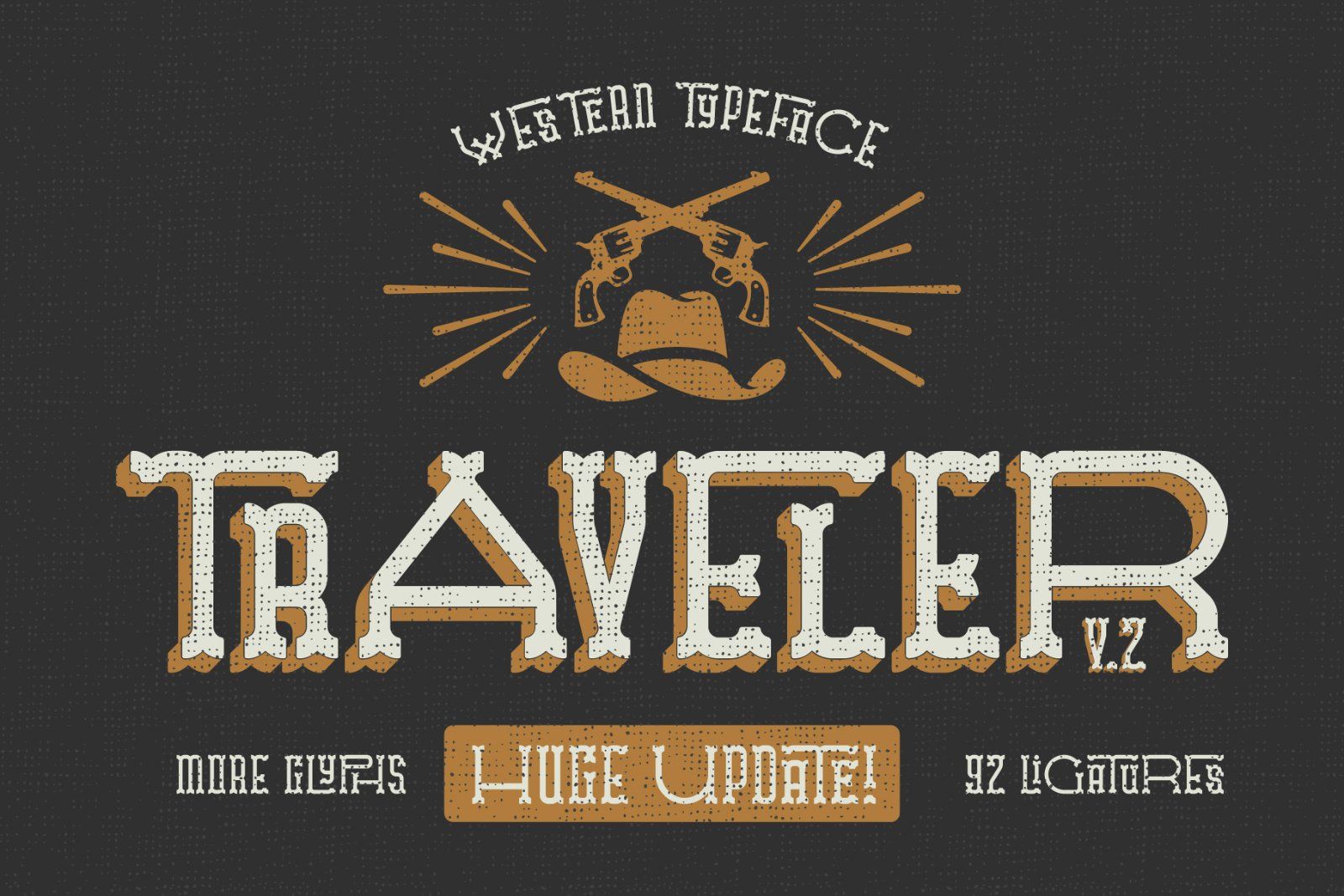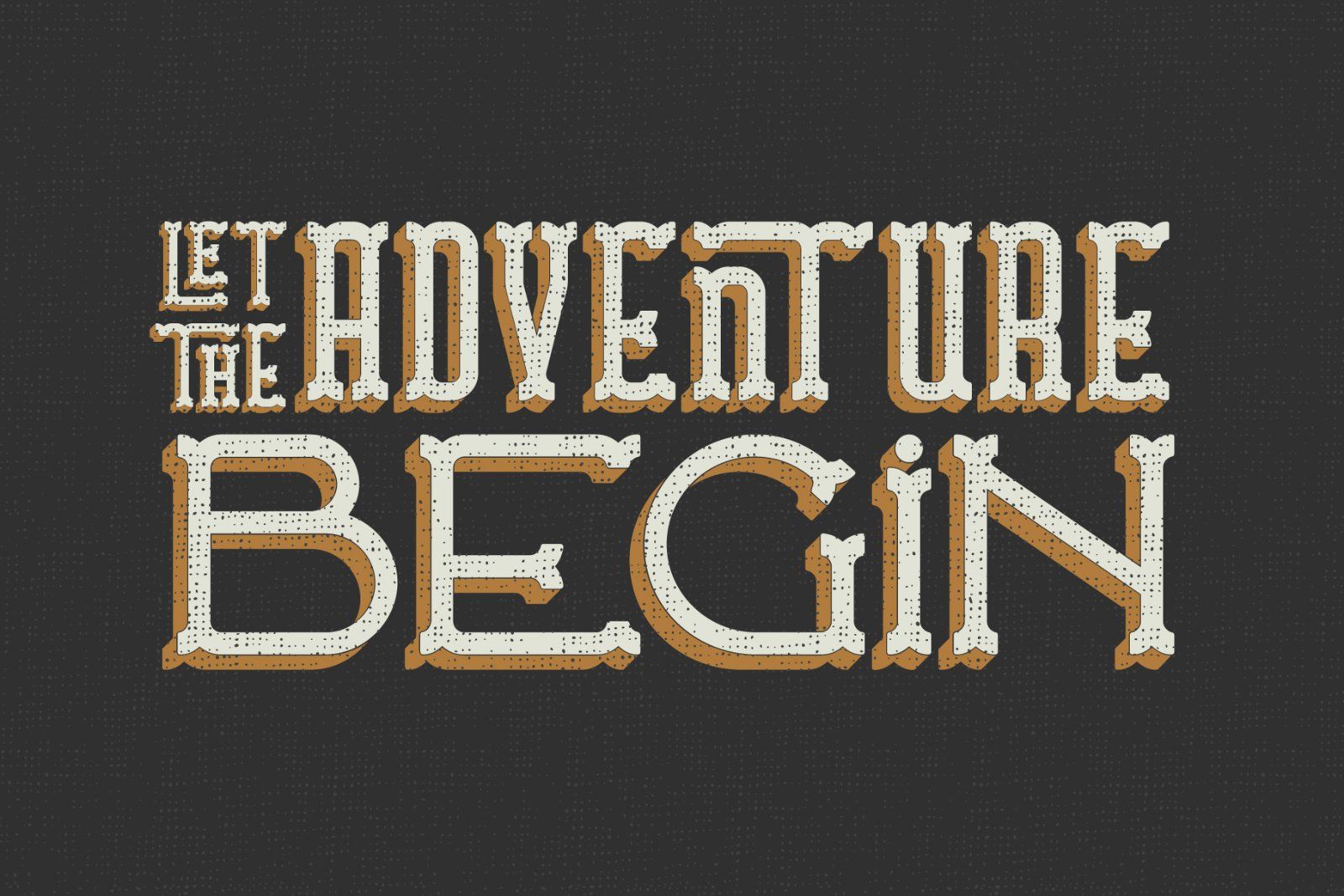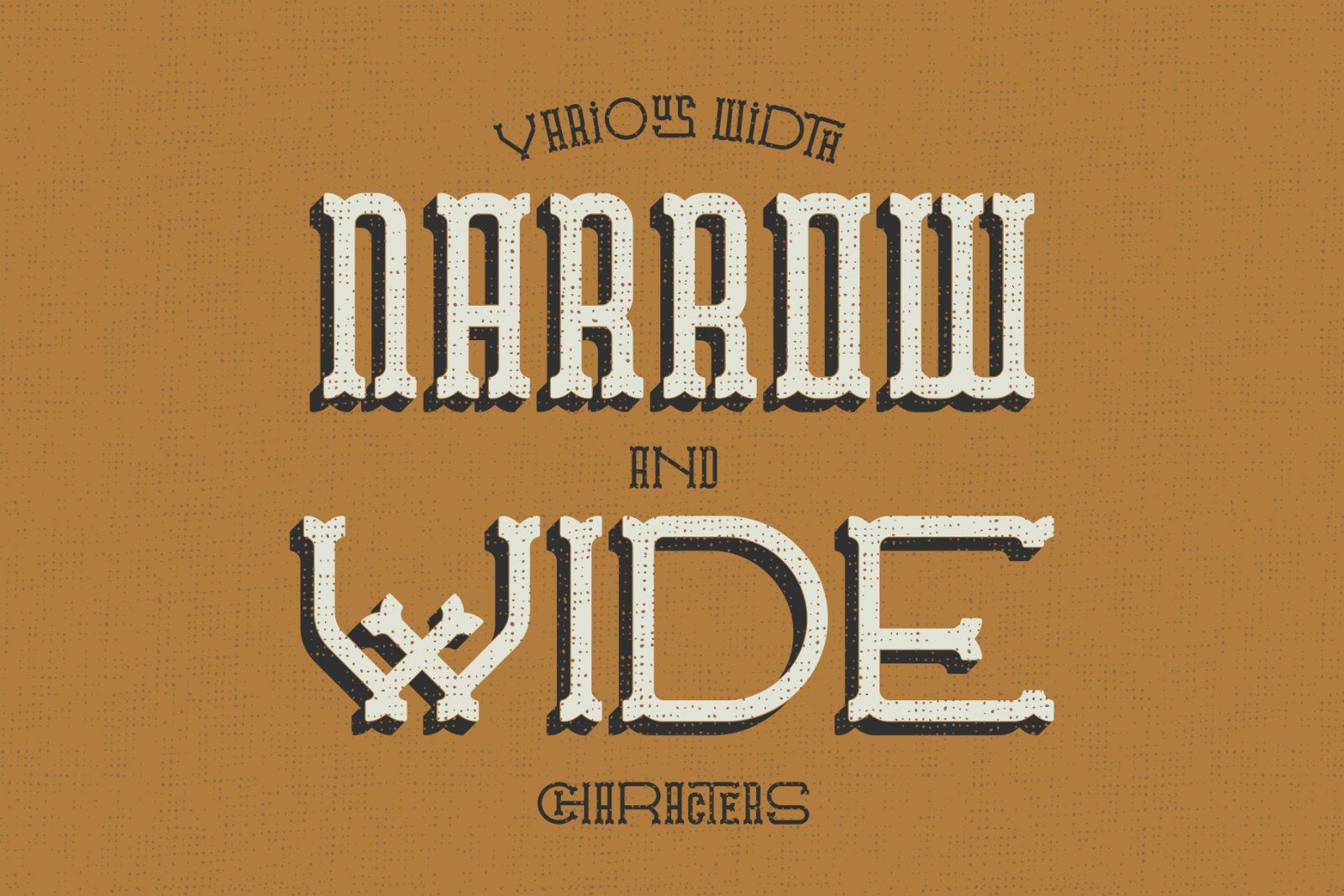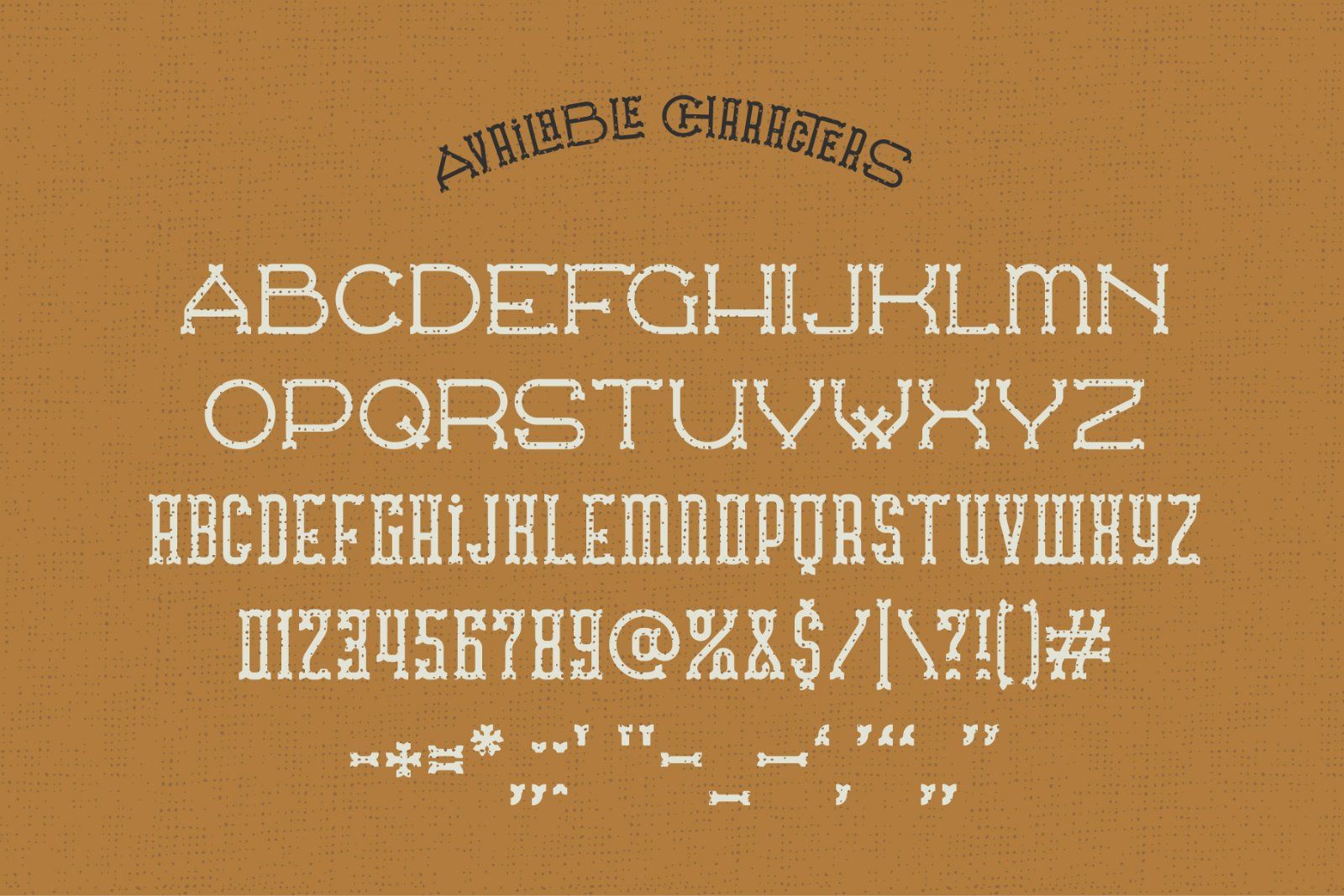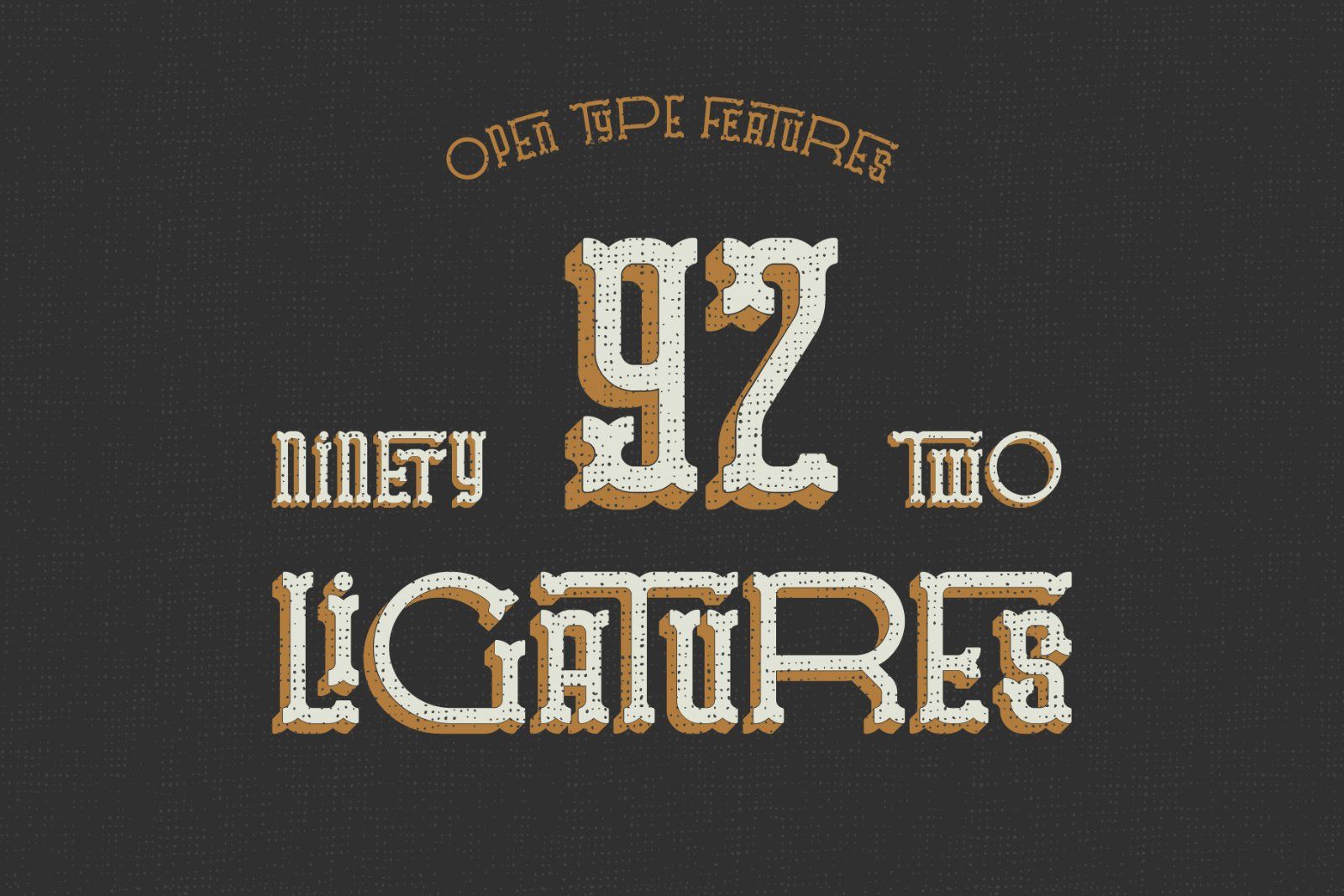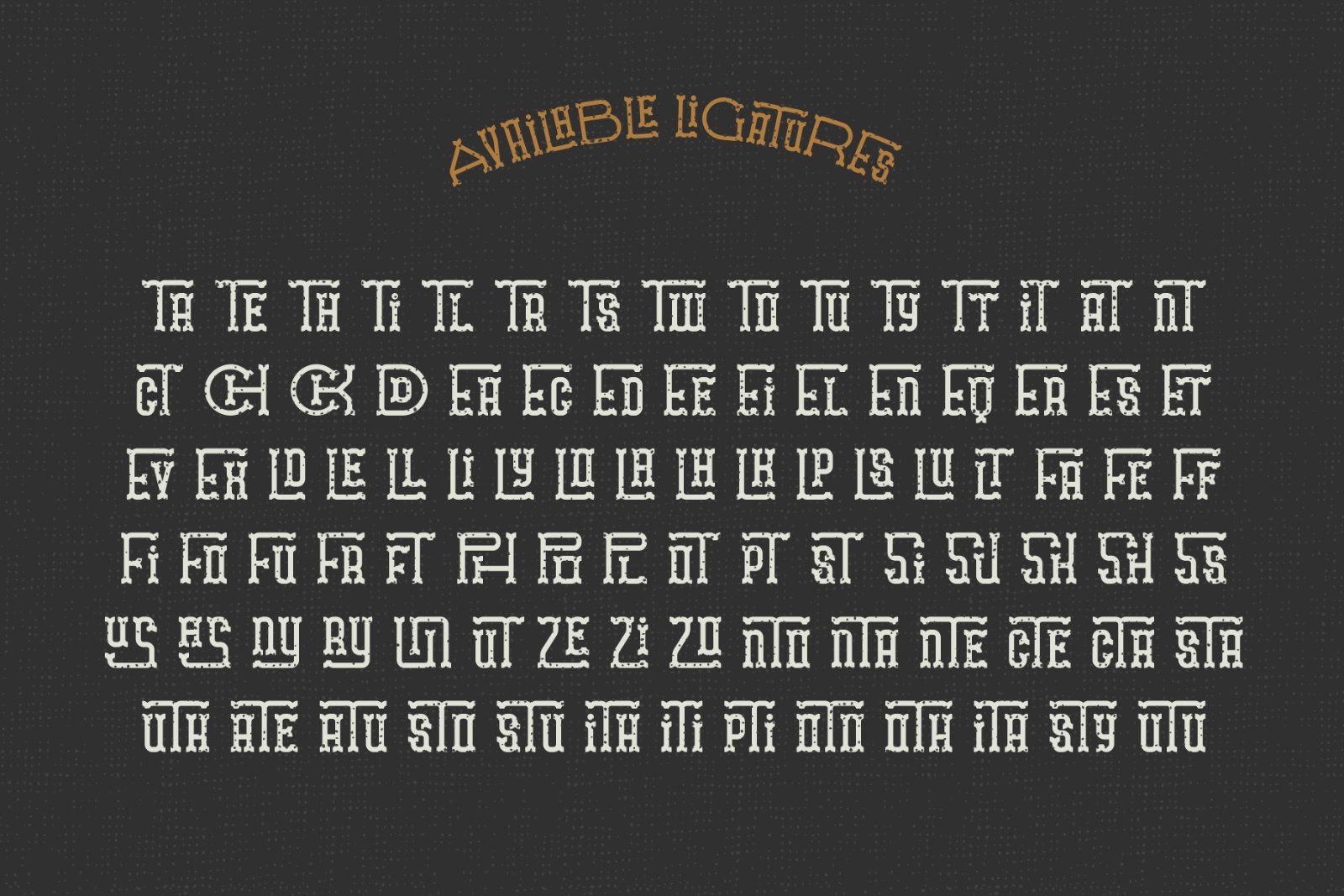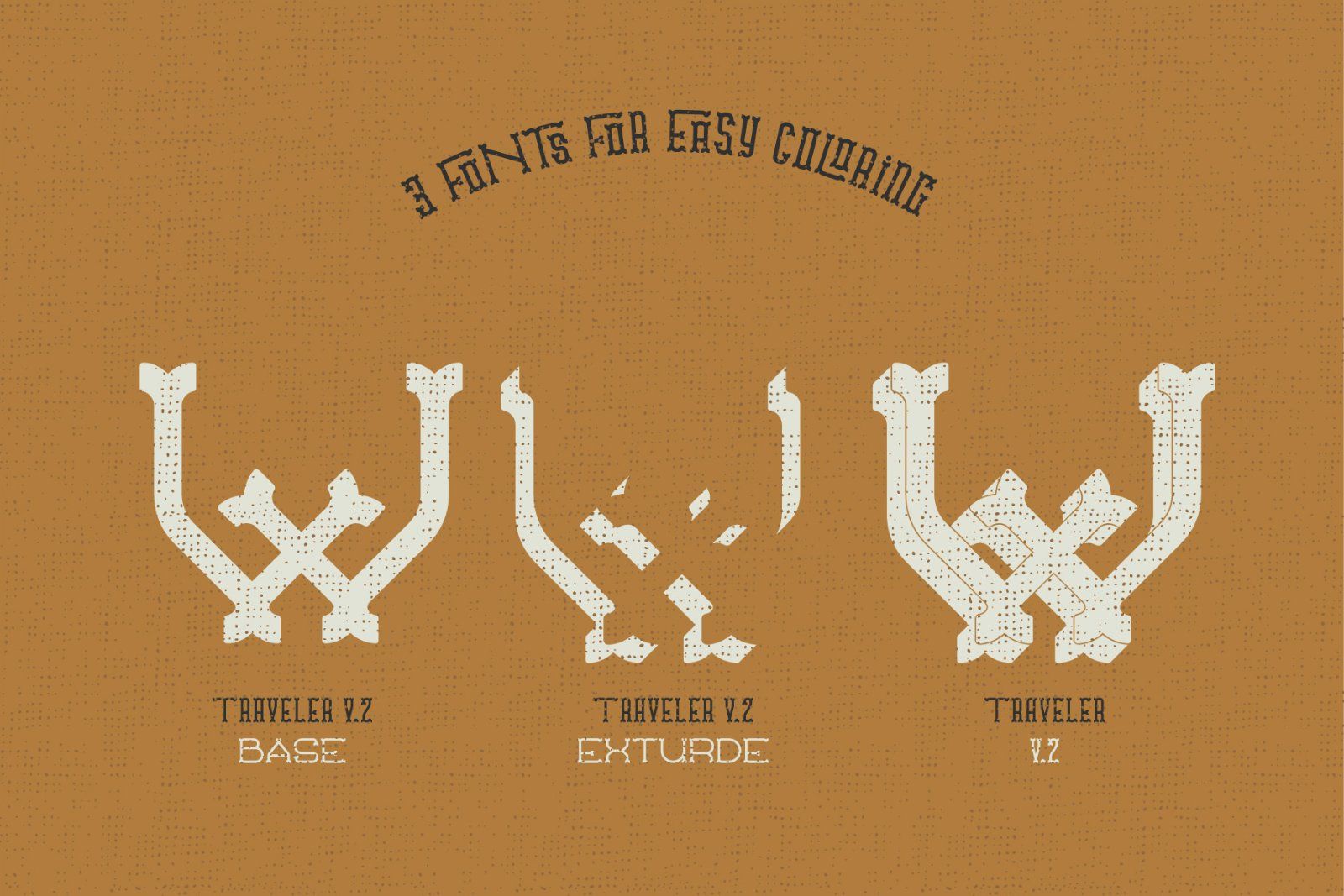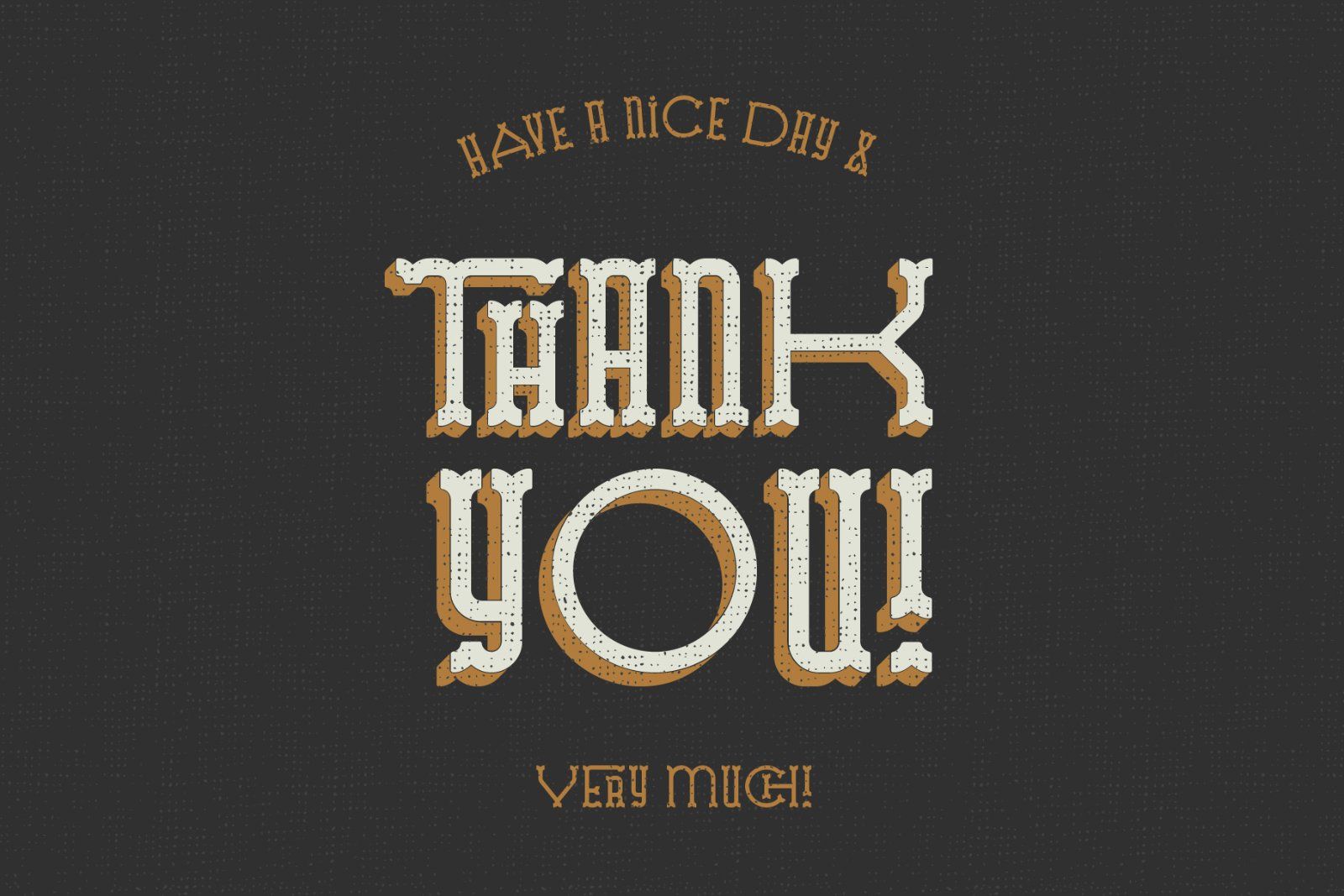
Introducing a wild west style font named "Traveler v.2". Now it includes numbers & punctuation glyphs. Added much more ligatures - 92 instead 32. It has wide and narrow characters, and lots of ligatures (automatically replaceable with open type feature). Trendy extruded effect is made in separate font file, for easy editing and coloring. The canvas texture, that you see on screenshots, it's just a top layer (included in EPS files).
To apply ligatures you have to use lowercase characters.